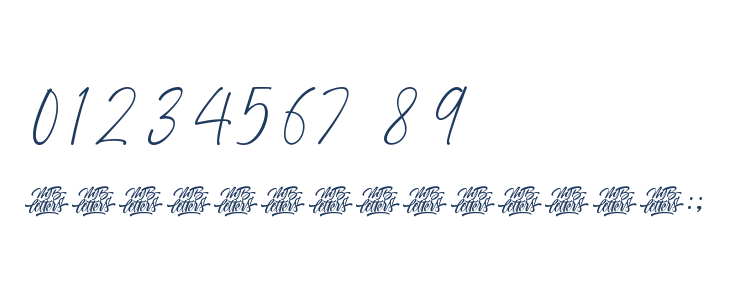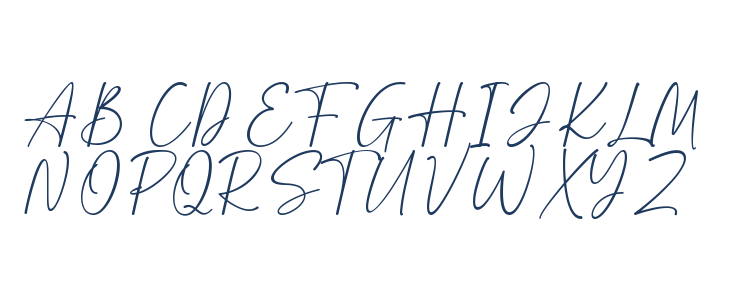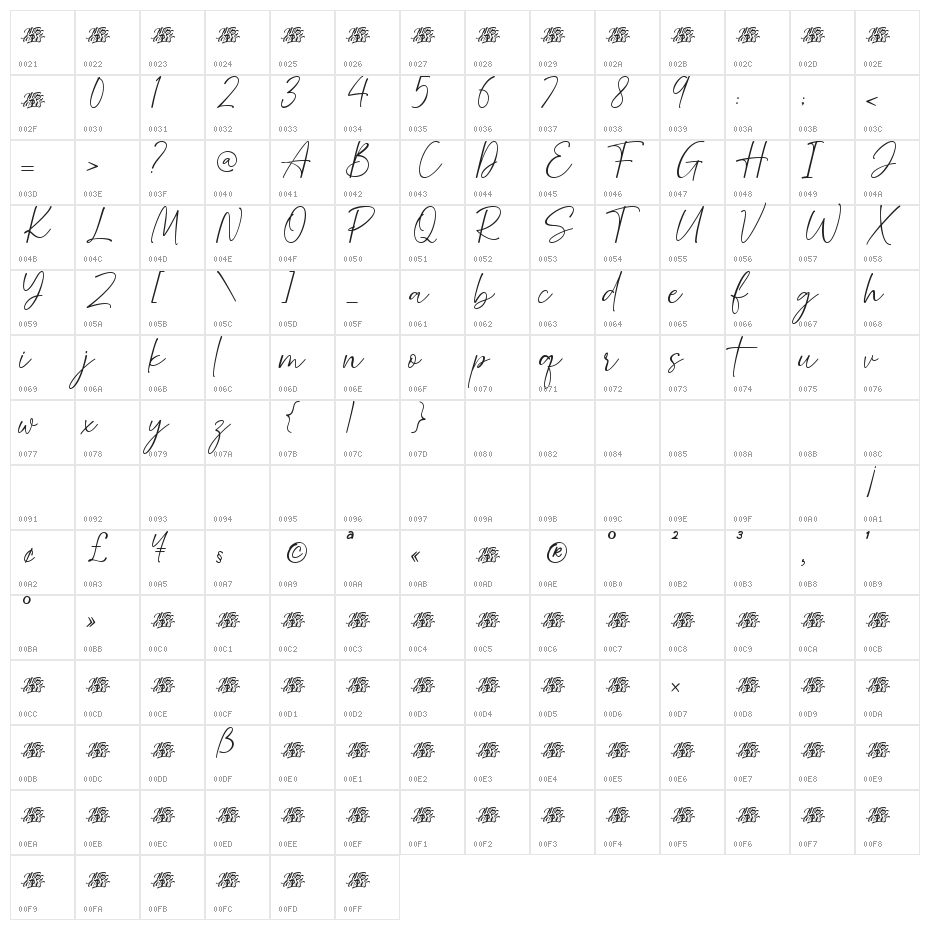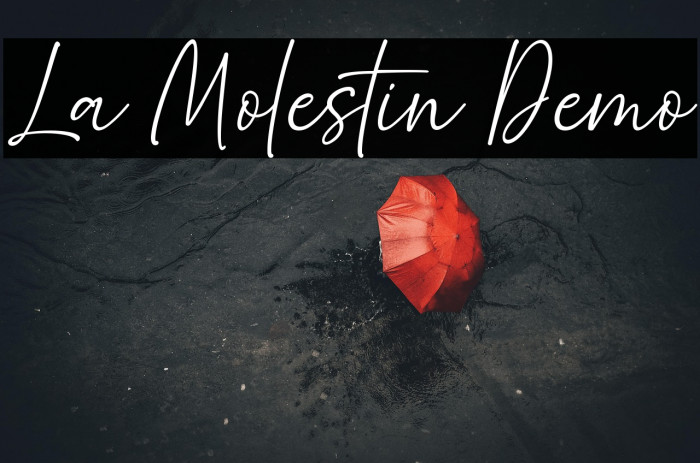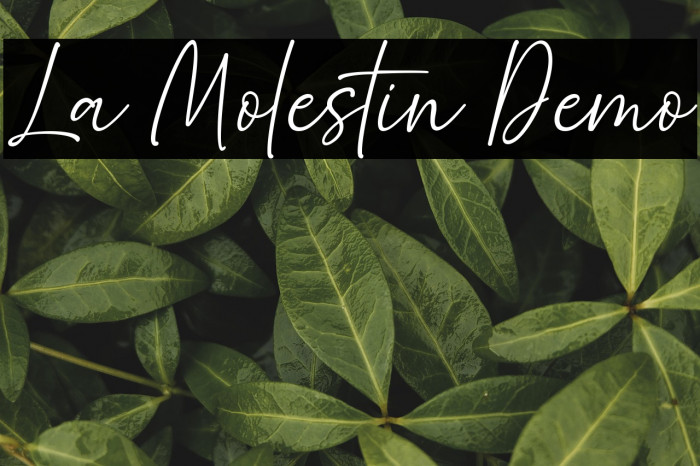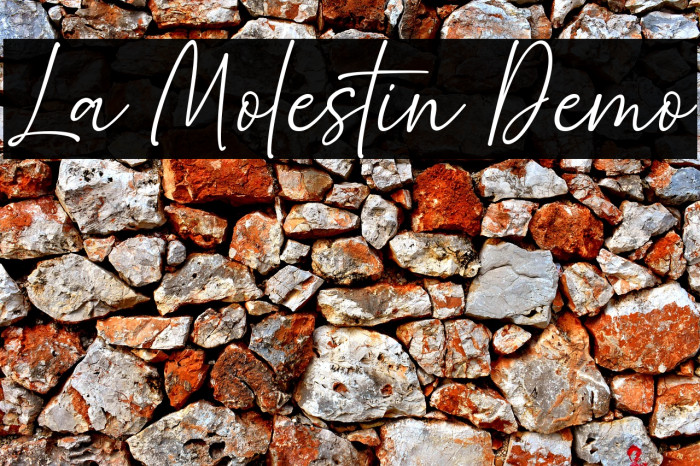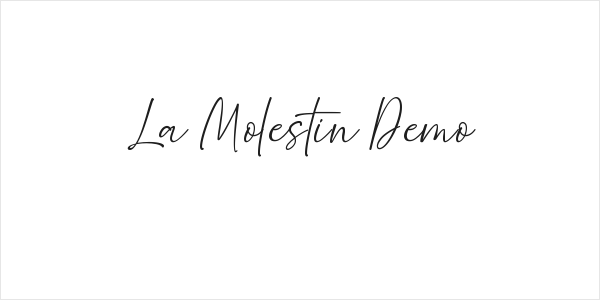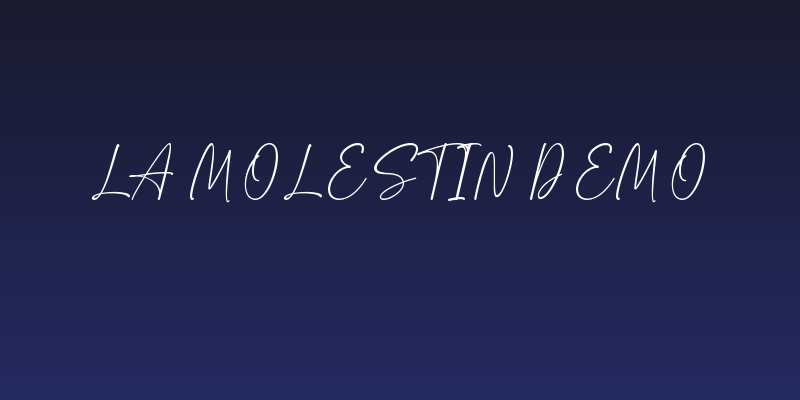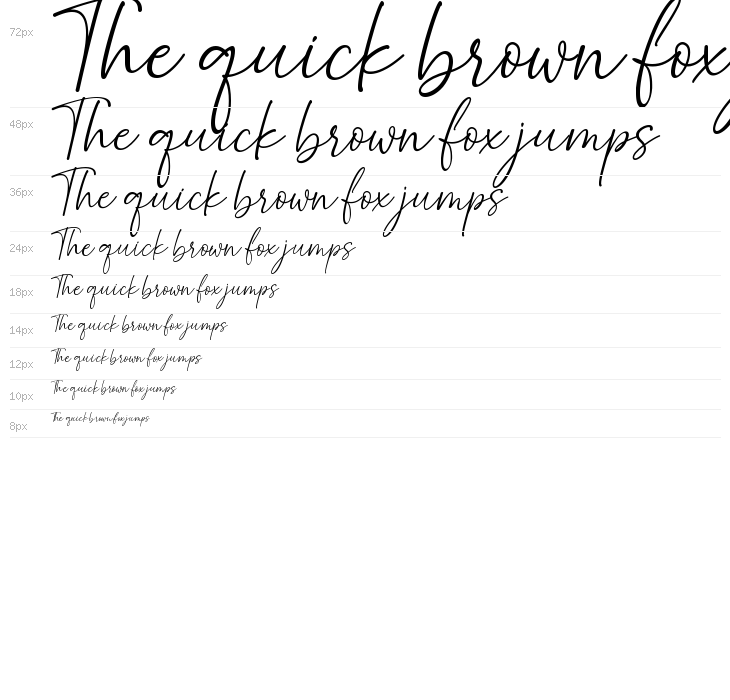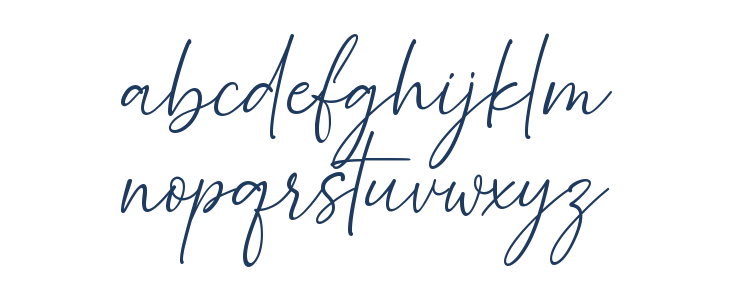
La Molestin Demo Font
La Molestin Demo Description
A casual, handwritten script font with fluid, connected strokes and a natural, slightly irregular baseline. The characters are tall and narrow, with generous ascenders and descenders, and a consistent, thin line weight throughout.
| Overall Style | Modern, Casual, Handwritten |
| Use Case | Logos, Headlines, Invitations, Social media posts |
| Proposed Projects | Greeting cards, invitations, personal branding, quotes, social media graphics. |